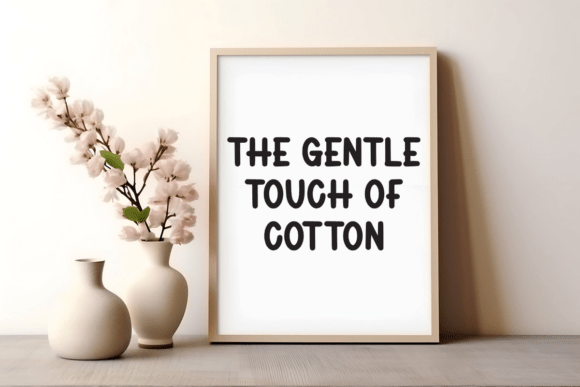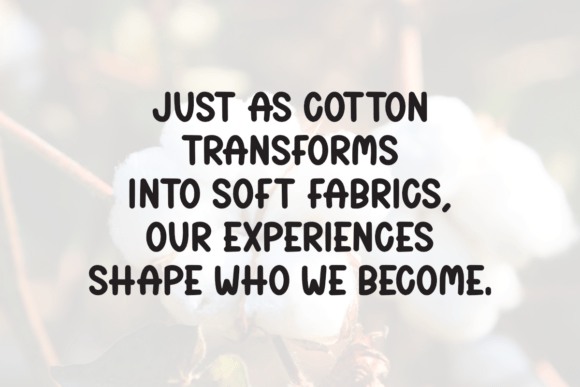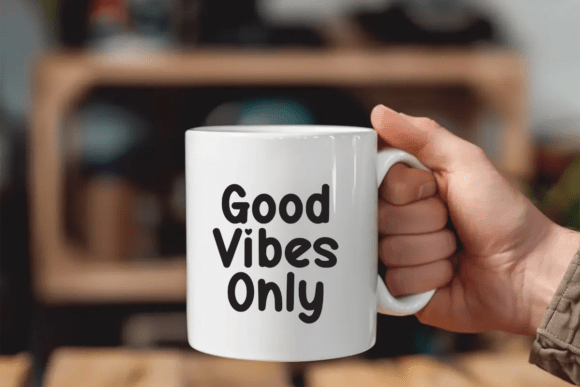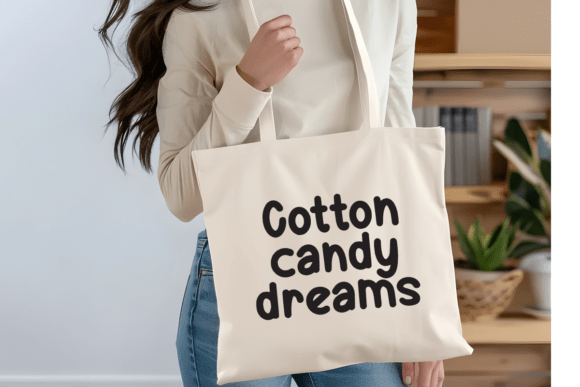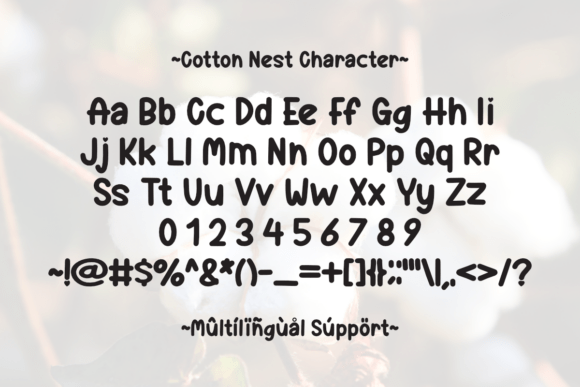
Cotton Nest Font: The Cozy, Handmade Feel for Your Design Projects
Are you looking for a font that exudes warmth, comfort, and a touch of handmade charm? Look no further than Cotton Nest, a smooth and plump sans serif font that’s perfect for designers and crafters seeking to create a cozy atmosphere in their projects. With its rounded letters and soft edges, Cotton Nest is an excellent choice for children’s books, baby products, and branding that aims to feel comforting and warm.
The Characteristics of Cotton Nest Font
Cotton Nest is a unique font that boasts a range of characteristics that make it stand out from other sans serif fonts. Its clean yet playful design makes it an excellent choice for a variety of design projects, from children’s books to branding and packaging. Here are some of the key features that make Cotton Nest so special:
• Smooth and Plump: Cotton Nest has a smooth, rounded appearance that’s both visually appealing and easy to read.
• Cozy, Handmade Feel: The font’s soft edges and rounded letters give it a cozy, handmade feel that’s perfect for designers and crafters seeking to create a warm and comforting atmosphere.
• Clean and Playful: Cotton Nest is a clean and playful font that’s perfect for designs that require a touch of whimsy and fun.
Perfect for Children’s Books and Baby Products
Cotton Nest is an excellent choice for children’s books and baby products, thanks to its playful and innocent appearance. The font’s rounded letters and soft edges make it easy to read and visually appealing, making it perfect for designs that require a touch of whimsy and fun. Whether you’re creating a children’s book, a baby blanket, or a set of nursery decor, Cotton Nest is an excellent choice.
Branding and Packaging
Cotton Nest is also an excellent choice for branding and packaging designs that aim to feel comforting and warm. The font’s clean and playful design makes it perfect for use in a variety of industries, from food and beverage to home decor and lifestyle. Whether you’re creating a logo, label, or packaging design, Cotton Nest is an excellent choice.
Why Choose Cotton Nest Font?
So why choose Cotton Nest font for your design projects? Here are just a few reasons why designers and crafters love this font:
• Unique and Versatile: Cotton Nest is a unique and versatile font that can be used in a variety of design projects, from children’s books to branding and packaging.
• Easily Readable: The font’s smooth and rounded appearance makes it easy to read, even at small sizes.
• Instantly Recognizable: Cotton Nest has a distinctive appearance that’s instantly recognizable, making it perfect for designers and crafters seeking to create a consistent brand identity.
Tips for Using Cotton Nest Font
Here are a few tips for using Cotton Nest font in your design projects:
• Pair with Other Fonts: Cotton Nest pairs well with other fonts, including serif and script fonts. Experiment with different pairings to find the perfect combination for your design.
• Use in Headings and Body Text: Cotton Nest is suitable for use in both headings and body text, making it a versatile choice for designers and crafters.
• Experiment with Colors: Cotton Nest looks great in a range of colors, from soft pastels to bold brights. Experiment with different colors to find the perfect look for your design.
Cotton Nest font is a smooth and plump sans serif font with a cozy, handmade feel that’s perfect for designers and crafters seeking to create a warm and comforting atmosphere in their projects. With its rounded letters and soft edges, Cotton Nest is an excellent choice for children’s books, baby products, and branding that aims to feel comforting and warm. Whether you’re a designer, crafter, or DIY enthusiast, Cotton Nest is an excellent choice for your next design project.